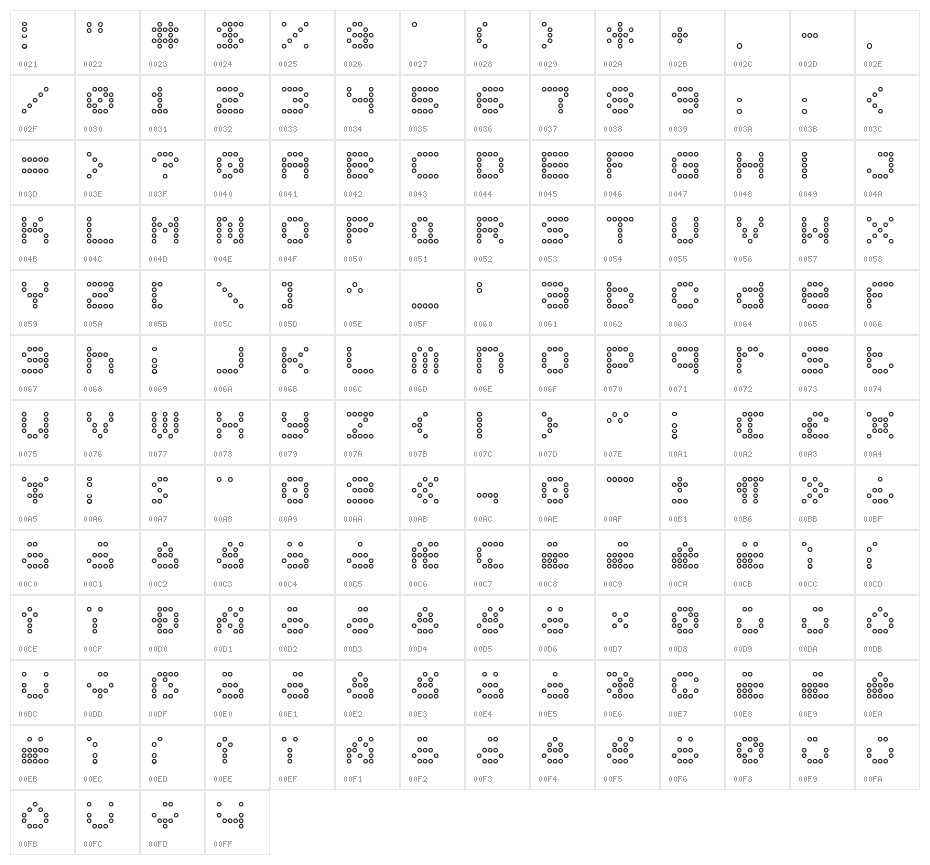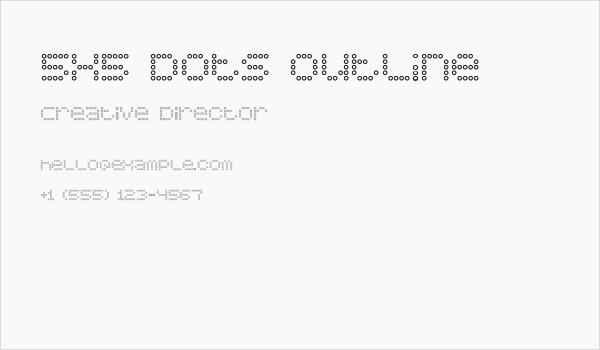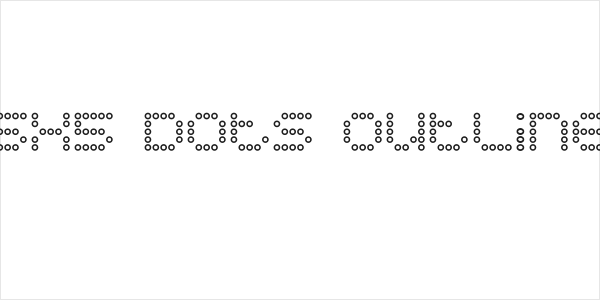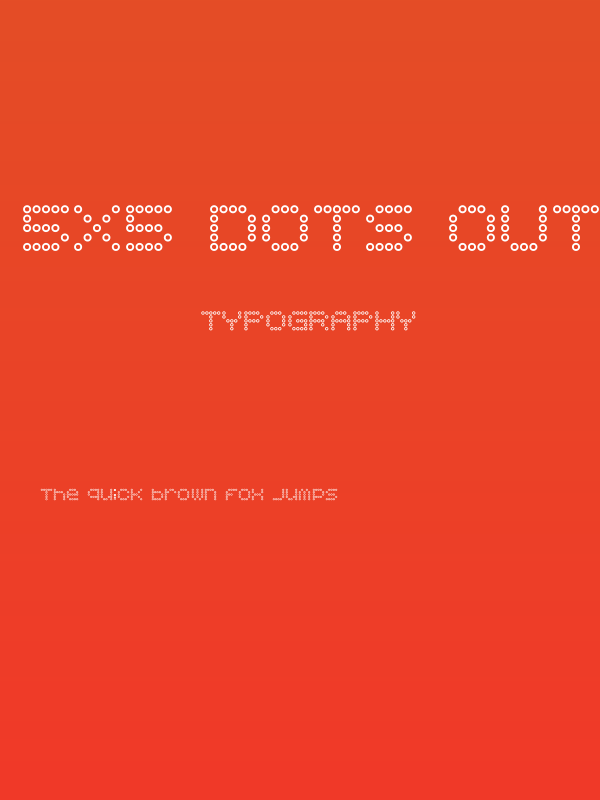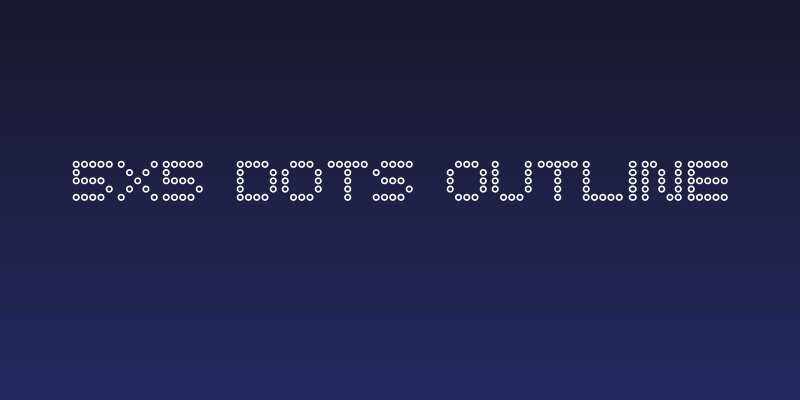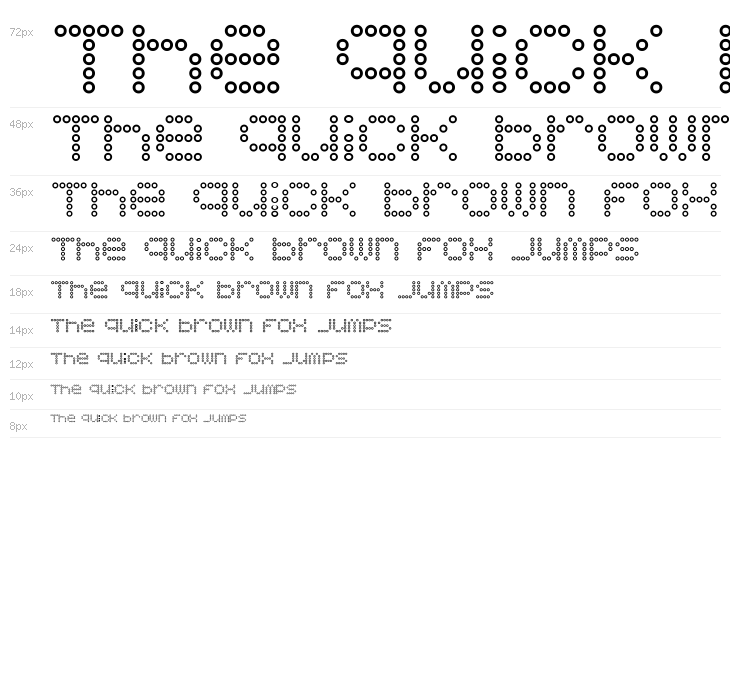
5x5 Dots Outline Font
5x5 Dots Outline Description
This font is a unique and playful design composed entirely of dots arranged in a grid-like pattern to form each character. The dots are evenly spaced, creating a consistent and structured appearance. Each letter and number is outlined with these dots, giving it a distinctive, almost digital look reminiscent of early LED displays or dot matrix printers. The font maintains uniformity across all characters, ensuring readability while adding a decorative flair. Its geometric nature makes it stand out, suitable for creative and modern design projects.
| Use Case | Headlines, Logos, Creative Posters |
| Proposed Projects | Ideal for digital displays, tech-themed designs, creative posters, and modern branding projects. |